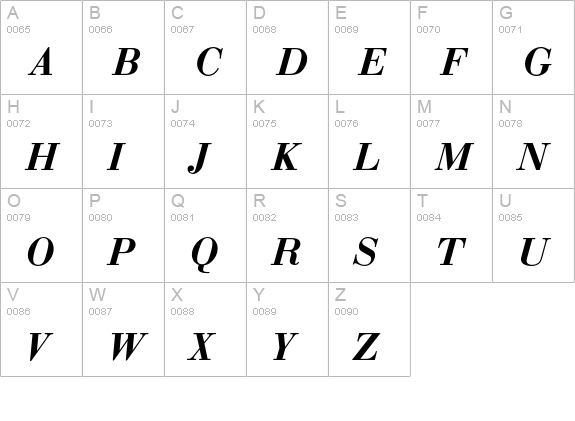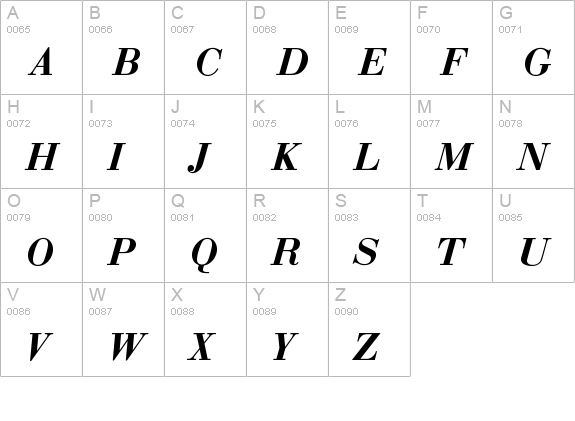
Bauer Bodoni T Demi Bold Italic is a sub-bold, structured, italic variant in the Bauer typeface family \xE2\x80\x94 well suited to sub-headlines and emphasised passages.
Bauer Bodoni T Demi Bold Italic is a striking and elegant typeface that exudes sophistication and modernity. Its prominent bold strokes and graceful italics create a perfect balance between strength and finesse, making it an ideal choice for projects that demand attention and style. The precise letterforms and distinctive curves of this font make it a standout choice for headlines, titles, and branding materials. What makes Bauer Bodoni T Demi Bold Italic even more appealing is that it is available for free download at FontsMarket.com. This means that designers and creatives can easily access and use this premium font without any cost, allowing them to elevate their designs with a touch of class and refinement. Whether you're working on a magazine layout, advertising campaign, or branding project, Bauer Bodoni T Demi Bold Italic is sure to make a bold statement and leave a lasting impression.